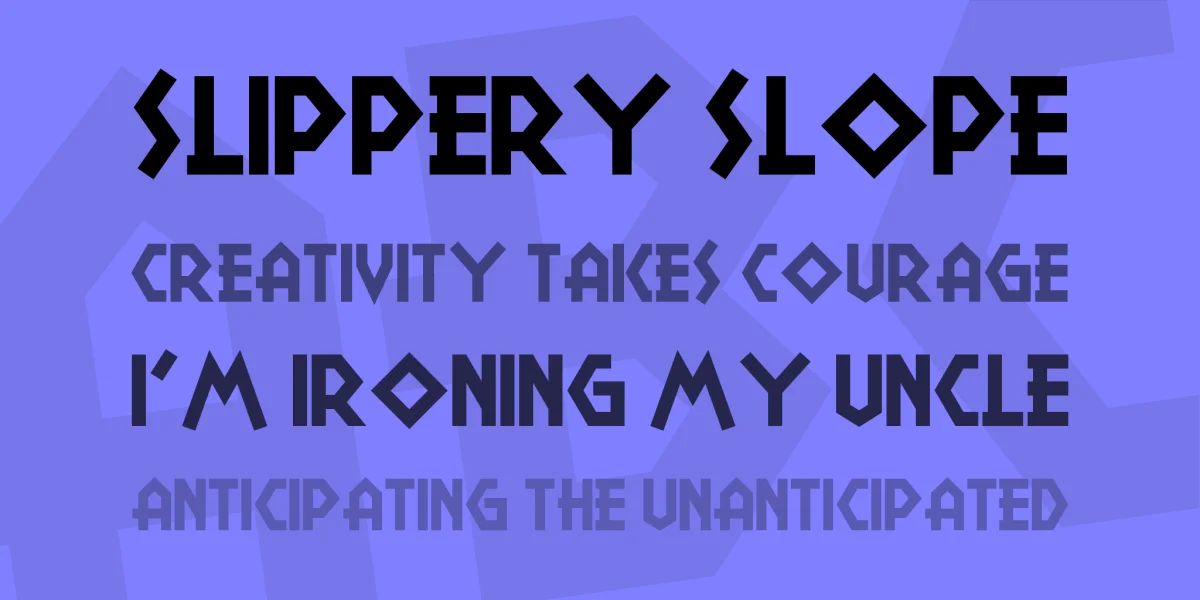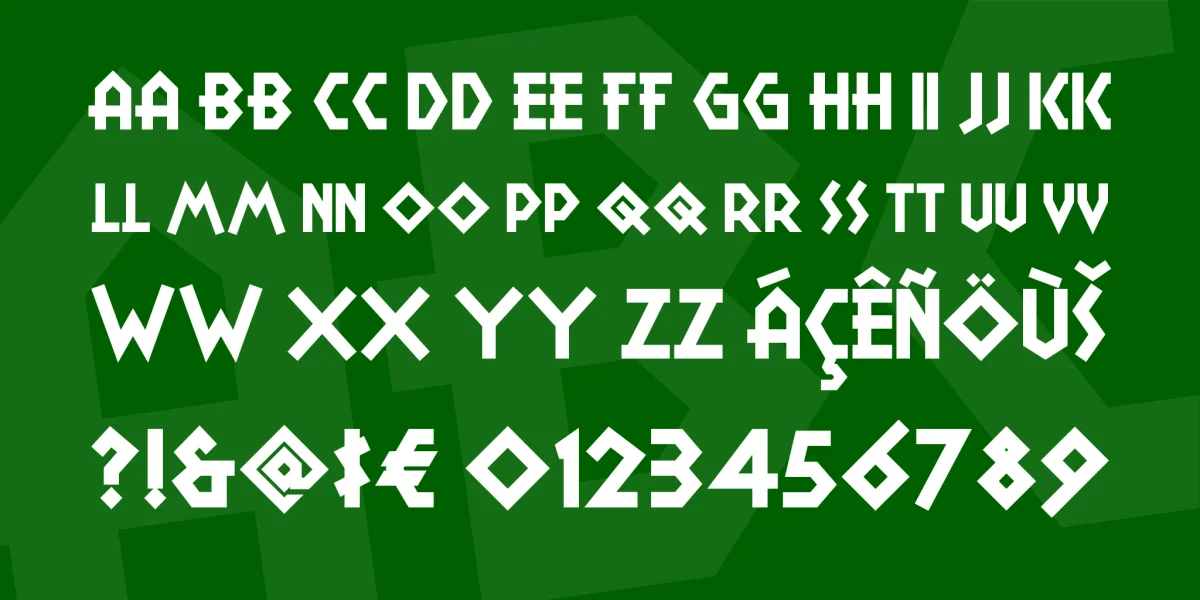
An all-purpose, woodsy, outdoorsy kinda font, based on poster lettering for a Delft Student Corps in the Netherlands, designed by Theodor van Erp in 1928, and named for the summer camp from Hell immortalized by Allen Sherman in the 60s.